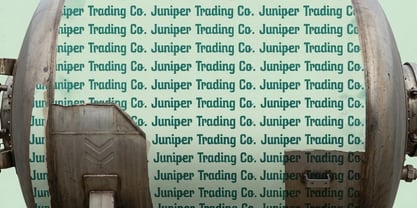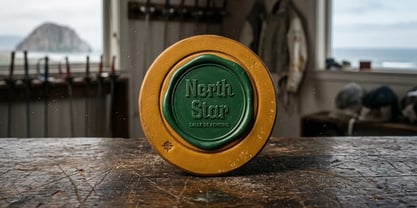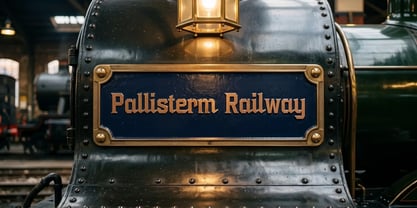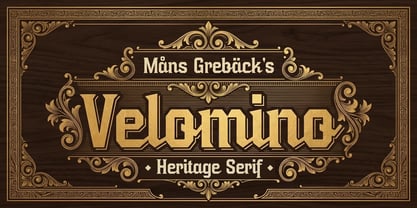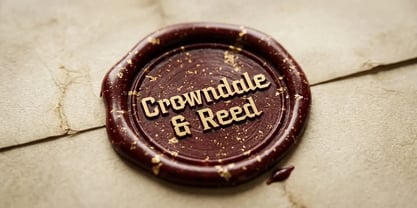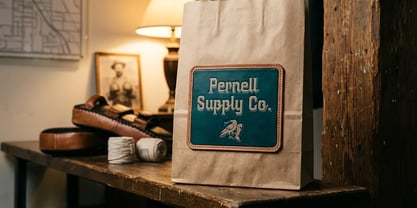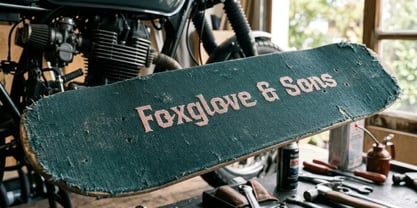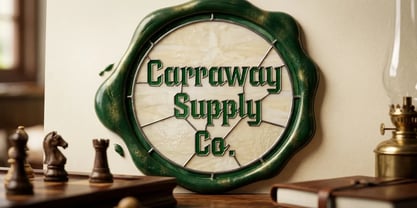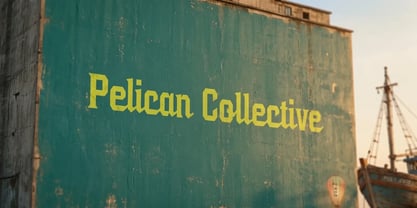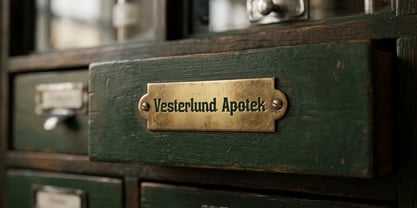
Velomino
Velomino is a vintage display script with the look of old engraved signage and pressroom type.
Its capitals are firm and a little ornamental, with crisp serifs and a worked-metal feel that recalls letterpress and steel nameplates. The shapes hold up large, where the detailing in the terminals comes through.
Picture it stamped along the spine of a clothbound book or cast in brass on the side of a steam locomotive.
The font is built with advanced functionality and guaranteed top-notch quality, containing stylistic and contextual alternates, ligatures and more automatic and manual features; all to give you full control and customizability.
It has extensive lingual support, covering all Latin-based languages, from North Europa to South Africa, from America to South-East Asia. It contains all characters and symbols you'll ever need, including all punctuation and numbers.